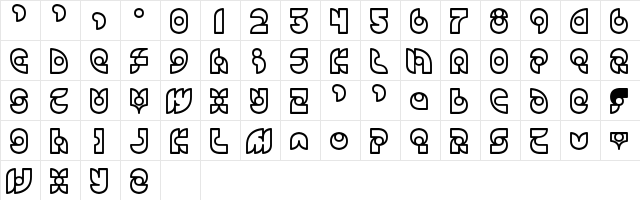
Candle Bold
Design Context for Candle Typeface
Candle is a composed and adaptable typeface that performs quietly and consistently across a wide range of design contexts. The heavy weight commands attention and anchors typographic hierarchies.